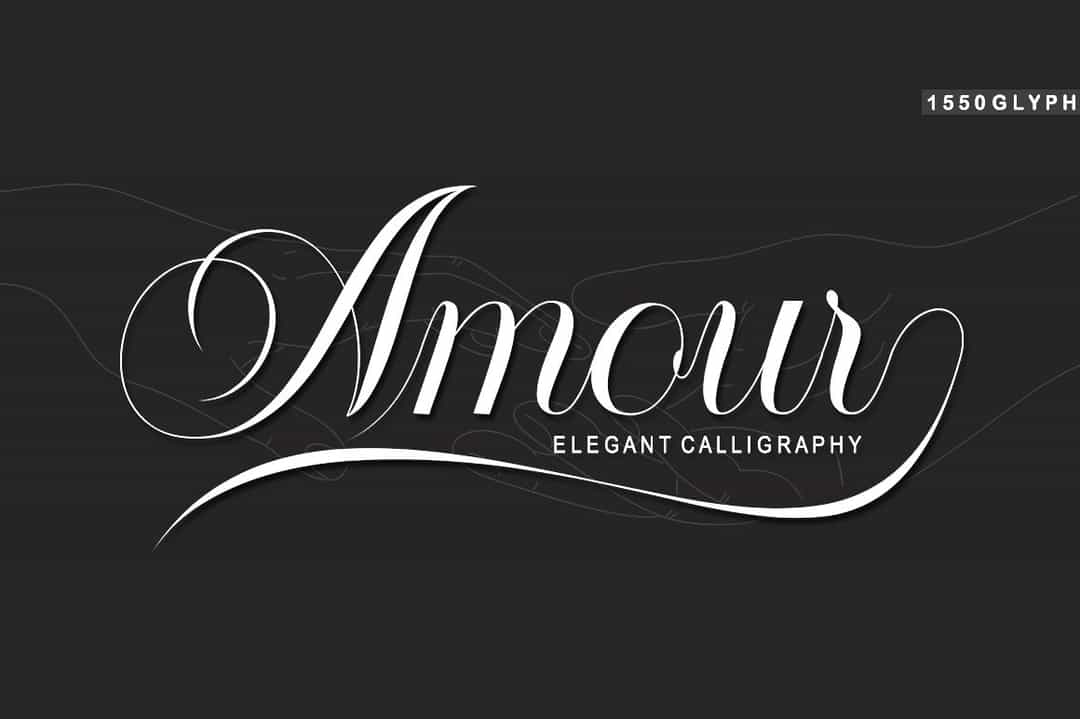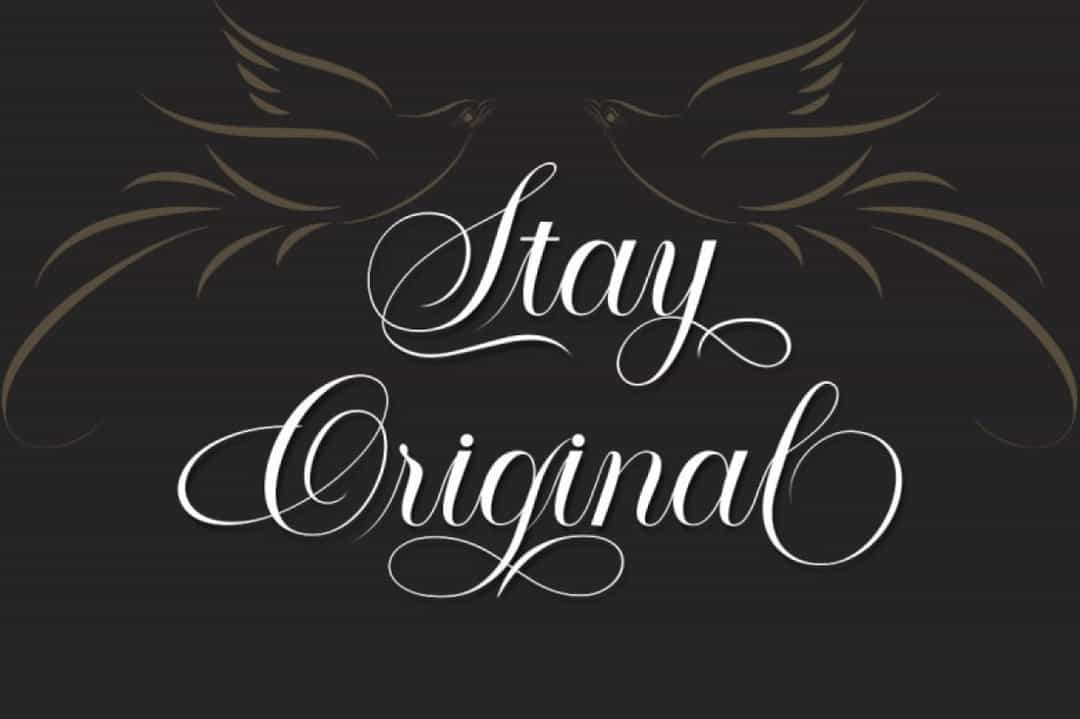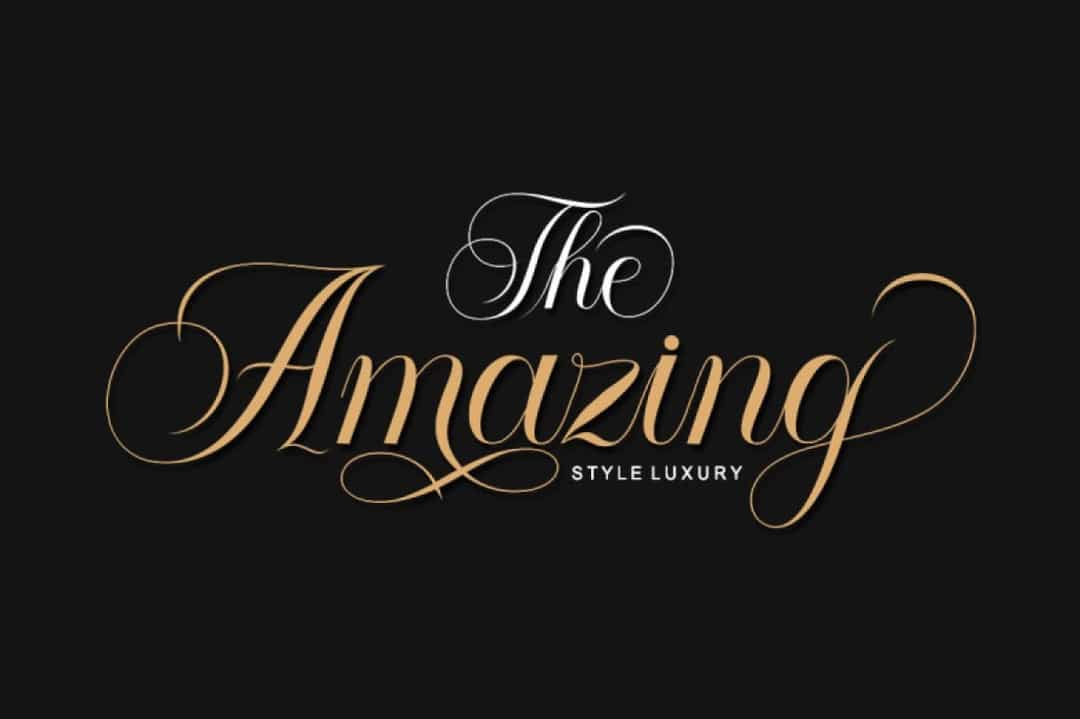
Amour can be best described as an elegant script calligraphy font with beautiful alternate characters, made up of copperplate calligraphy, handlettering and designed to convey elegance and style. Amour’s romantic appeal makes it suitable for formal pieces like invitations, labels menus logos fashion make-up stationery magazines wedding/greeting cards packaging labels etc.